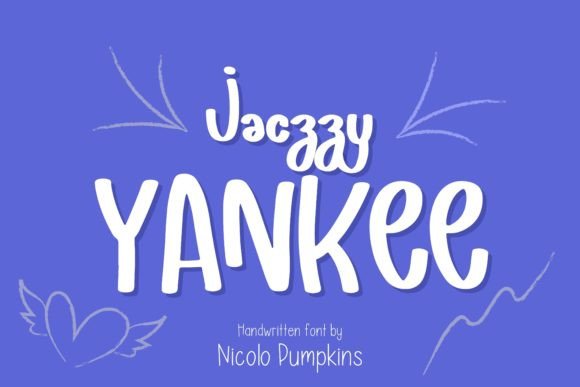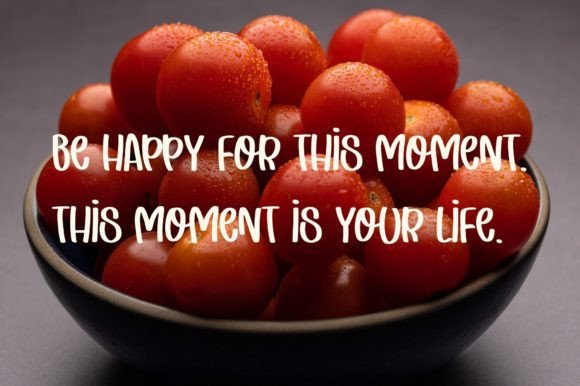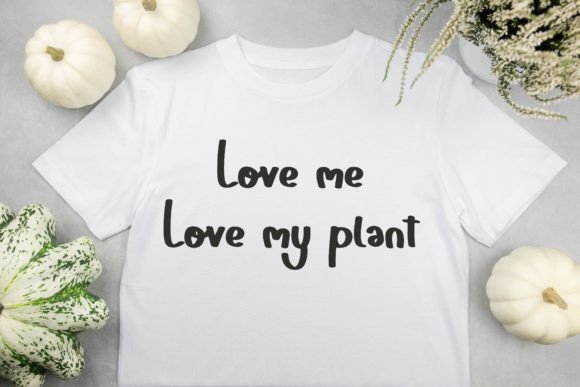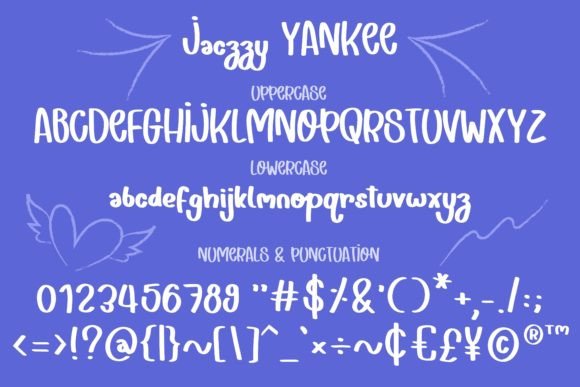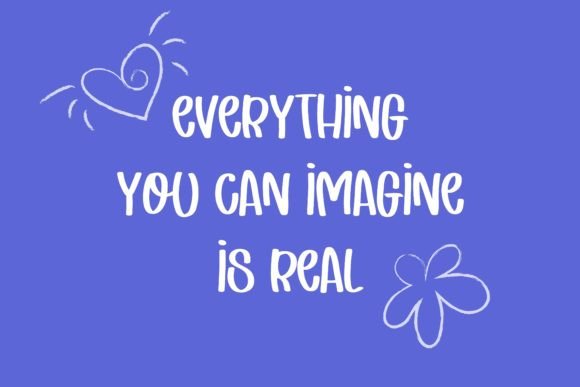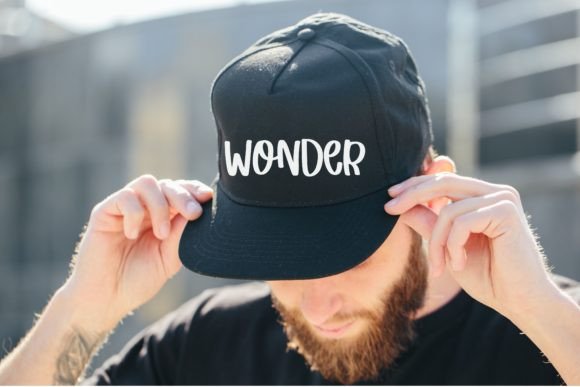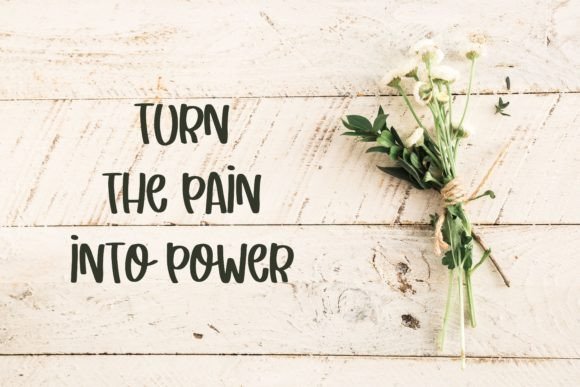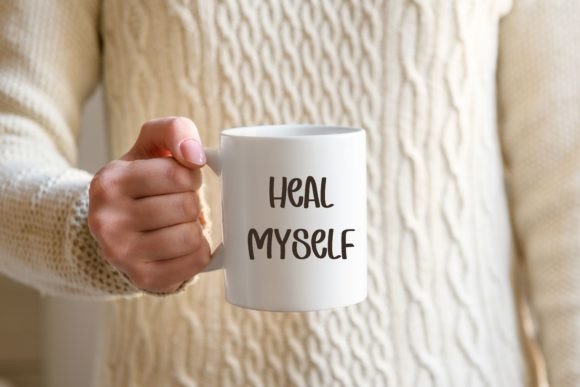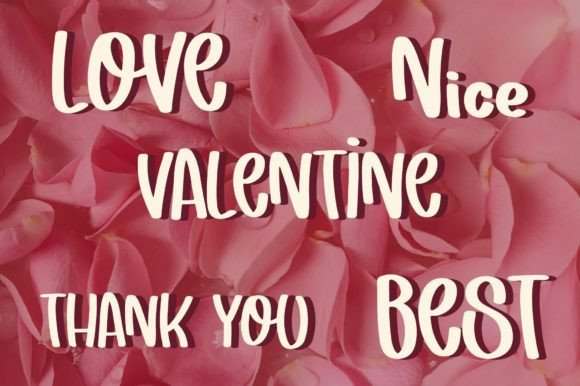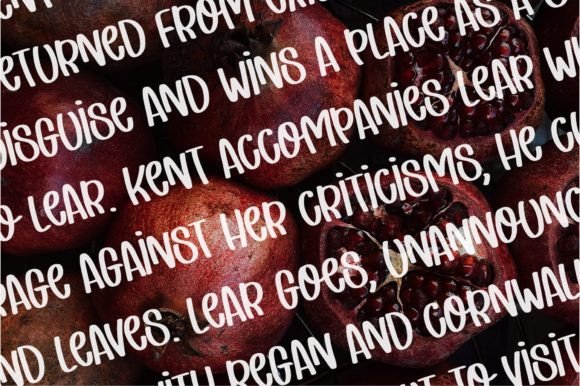
Jaczzy Yankee Font
About Jaczzy Yankee Font
Jaczzy Yankee, with its cute and friendly handwritten style, brings a delightful and approachable charm to your lettering projects. Whether you’re working on quotes, logos, or any other creative endeavor, Jaczzy Yankee is designed to infuse your ideas with a playful and inviting touch. The font is PUA encoded, providing convenient access to its diverse set of glyphs and swashes.
The cuteness and friendliness of Jaczzy Yankee make it a perfect choice for projects that seek to create a warm and approachable vibe. Its handwritten charm adds a personal touch to your designs, making them stand out with character and whimsy.
Crafted to enhance creativity, Jaczzy Yankee allows you to easily access a variety of glyphs and swashes through its PUA encoding. This versatility empowers you to experiment with different styles and design elements, making Jaczzy Yankee a valuable addition to your font collection.
Whether you’re creating cheerful quotes for social media, designing a lovable logo, or working on any lettering project, Jaczzy Yankee is ready to be the cute and friendly font that brings joy to your designs. Let it be the element that adds a touch of playfulness and creativity to your creative ideas.
Embrace the cute and friendly personality of Jaczzy Yankee, and experience how it can make your lettering projects stand out. With its PUA encoding and adorable handwritten style, Jaczzy Yankee is a font that radiates positivity and charm, making it an ideal choice for adding a playful touch to your designs.